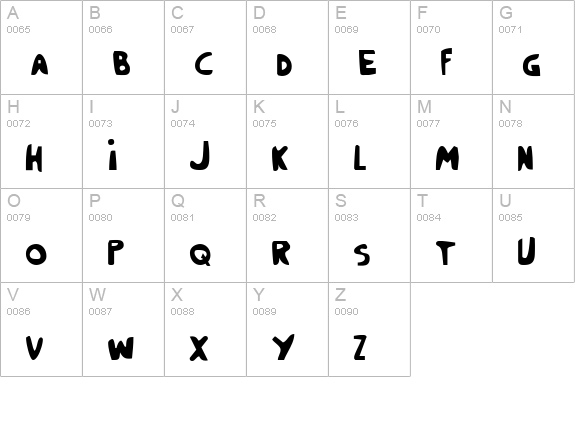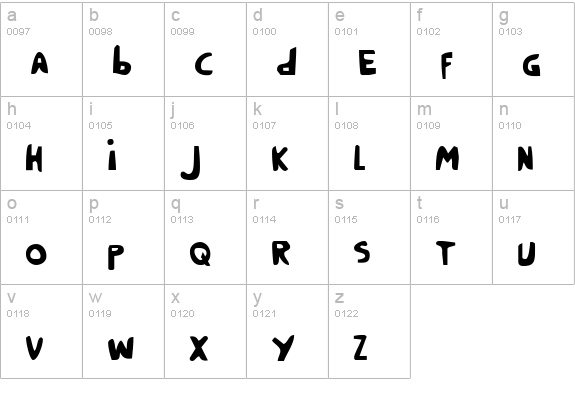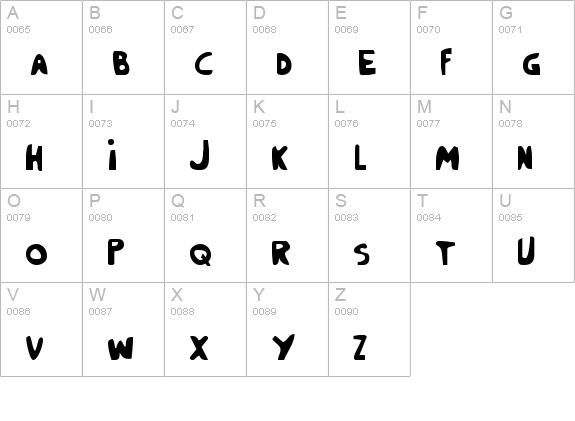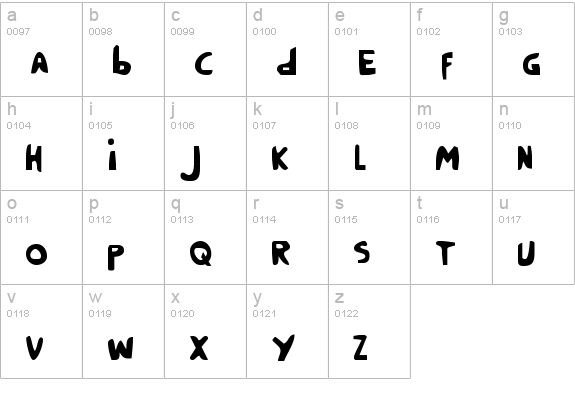
Crappity-Crap-Crap Cond Font Details
Crappity-Crap-Crap Cond is a distinctive, condensed-width variant in the Crappity typeface family \xE2\x80\x94 well suited to design and typography projects.
Introducing the whimsical and playful Crappity-Crap-Crap Cond font, a delightful typeface that adds a touch of fun and quirkiness to any project. This font features quirky and irregular letterforms that give off a unique and charming aesthetic. With its condensed style, Crappity-Crap-Crap Cond is perfect for creating eye-catching headlines, logos, posters, and more. Best of all, Crappity-Crap-Crap Cond font is available for free download at FontsMarket.com. Embrace the creativity and expressiveness of this one-of-a-kind typeface without breaking the bank. Add a dash of personality to your designs with Crappity-Crap-Crap Cond font today!